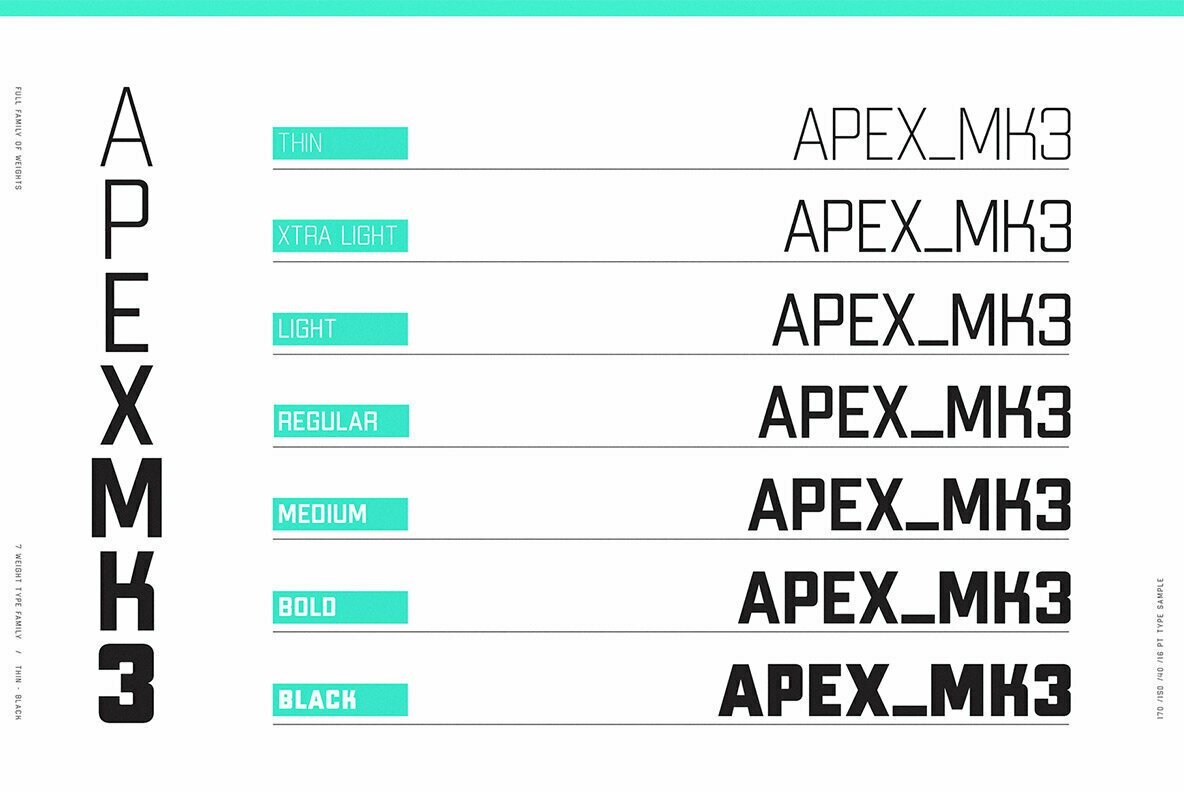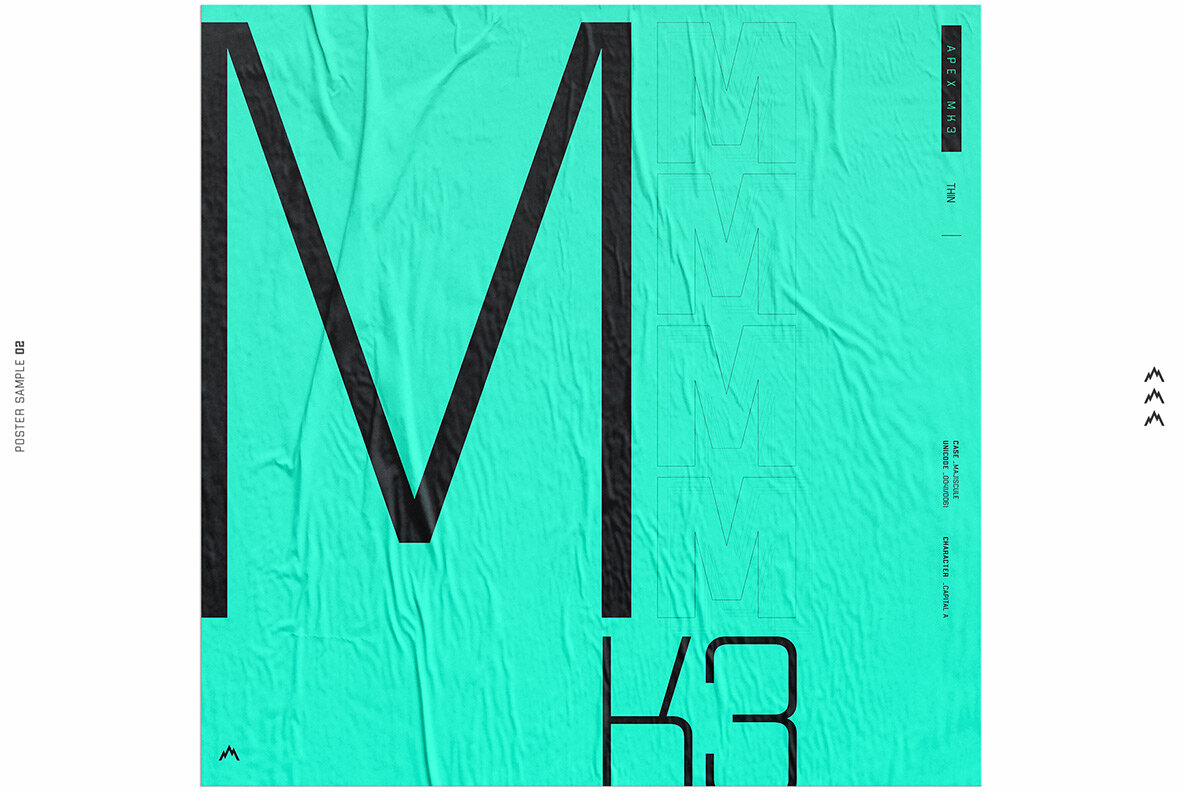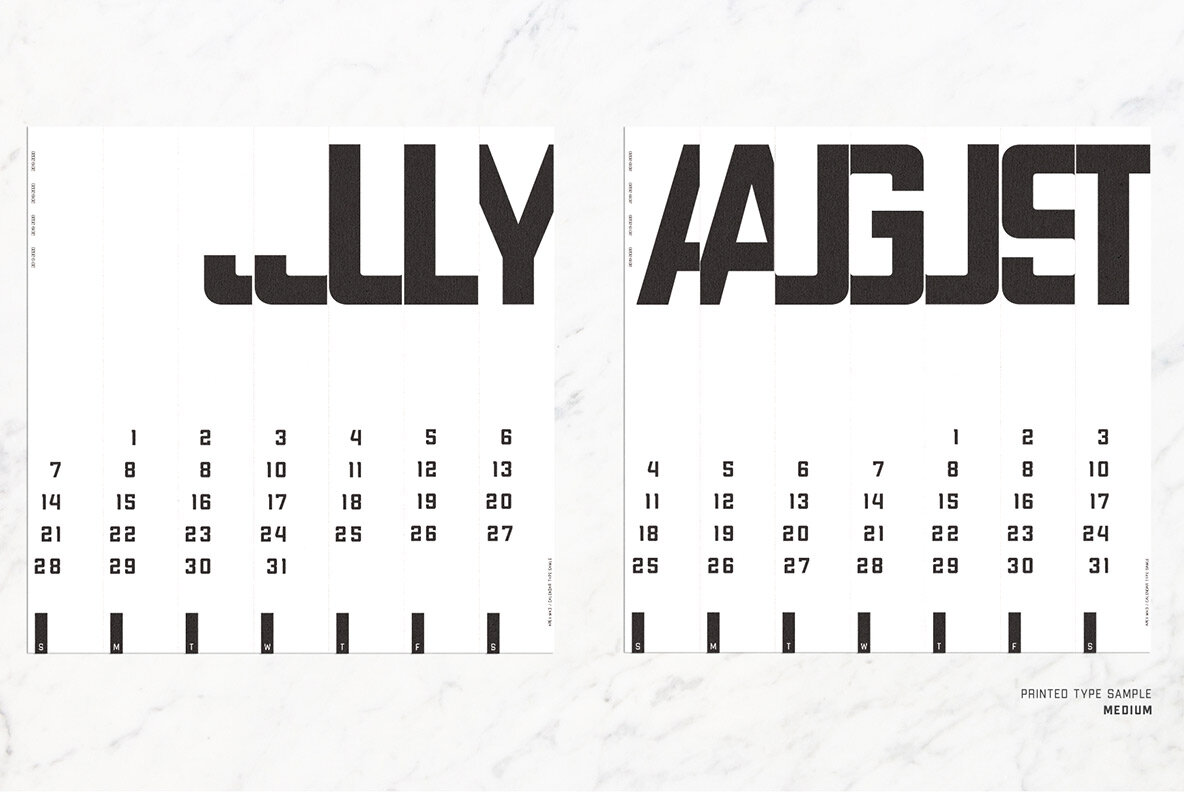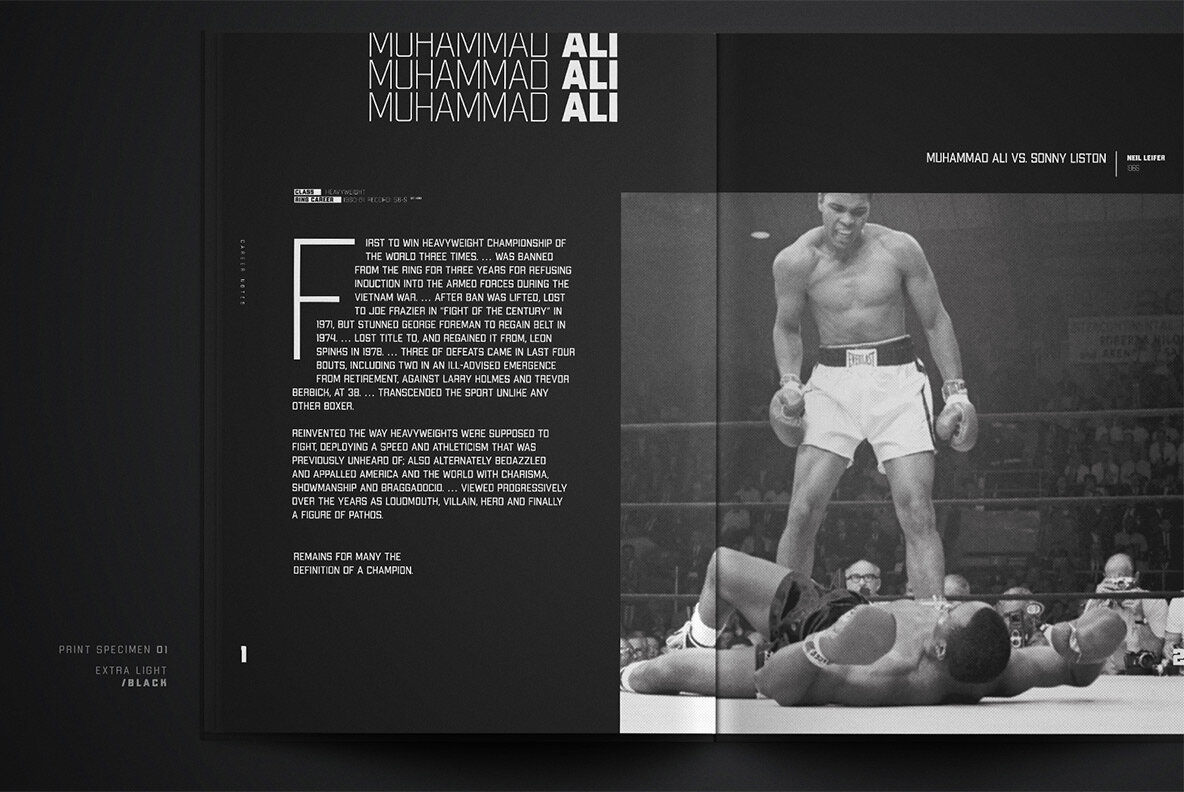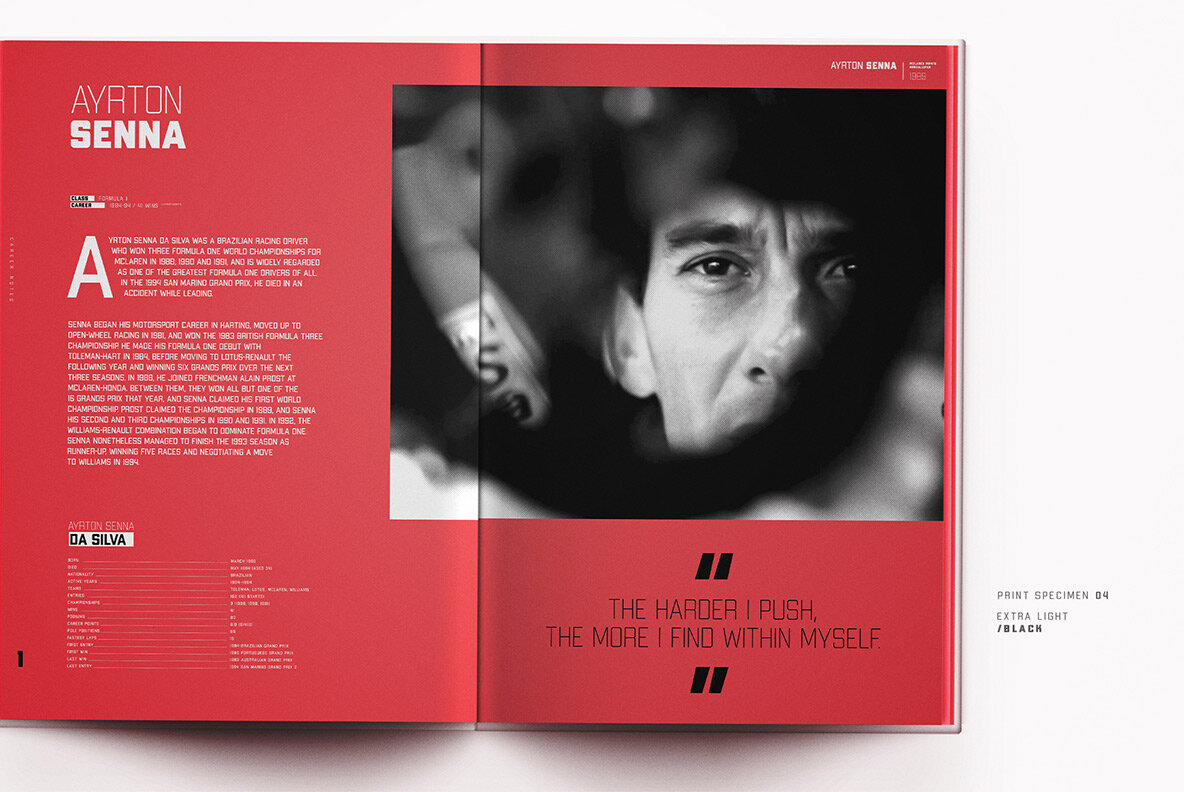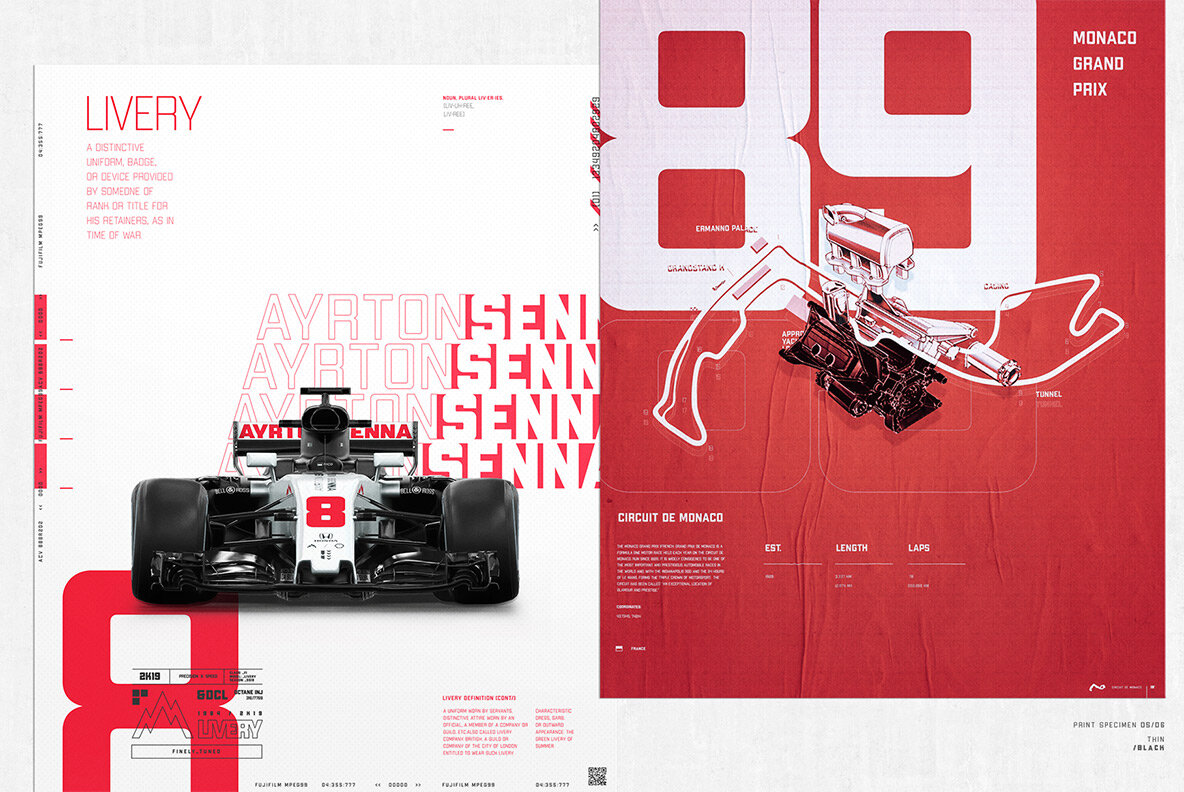
Apex Mk3 Font
A robust display typeface, Apex Mark 3 takes inspiration from classic geometric forms, sans serifs, and workhorse athletic block type. Simplicity of form gives it flexibility for a broad range of uses, while its geometric frame provides the foundation for its decisive tone.
Including seven weights, the family ranges from Thin (100) to Black (900).